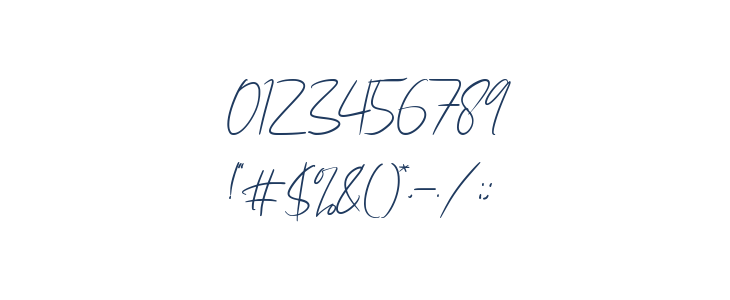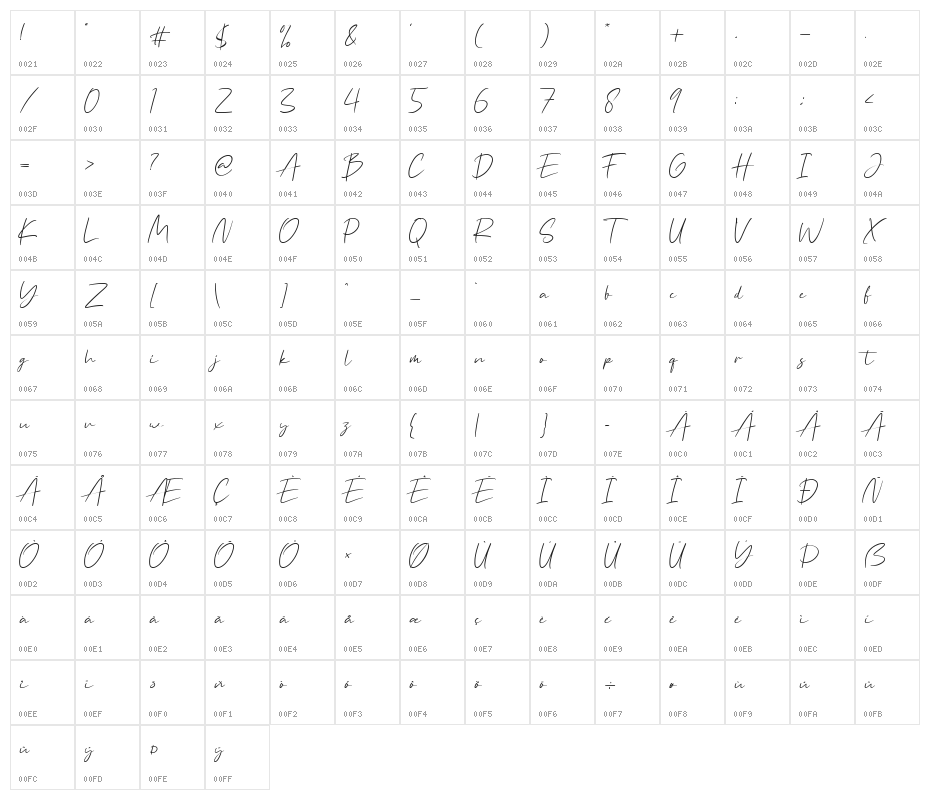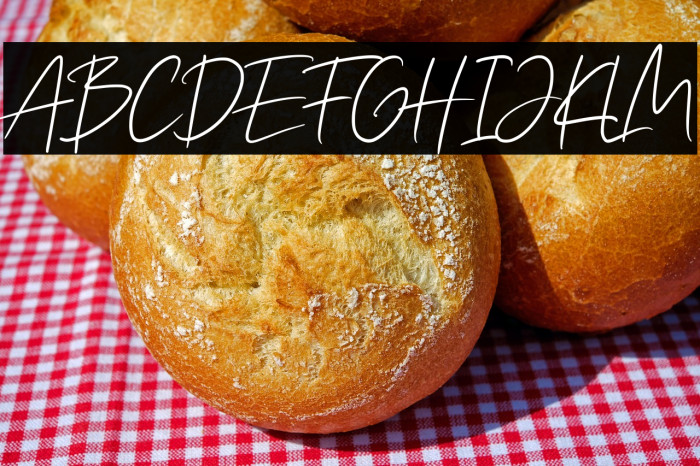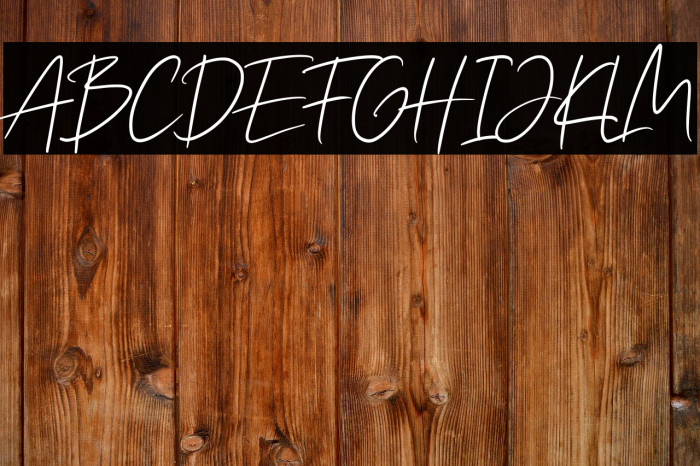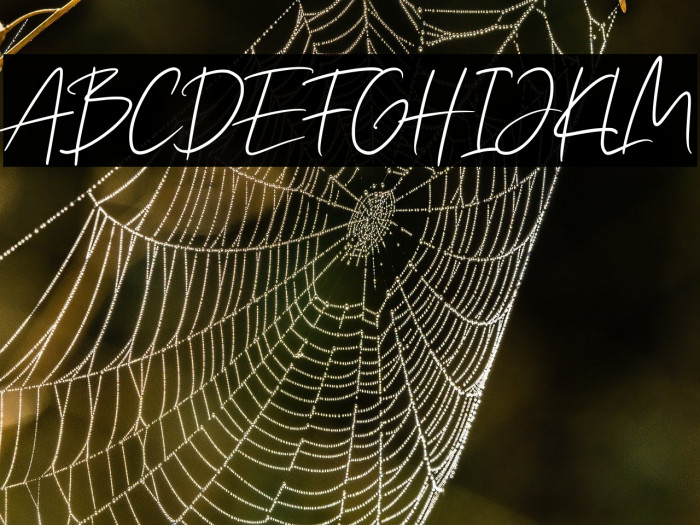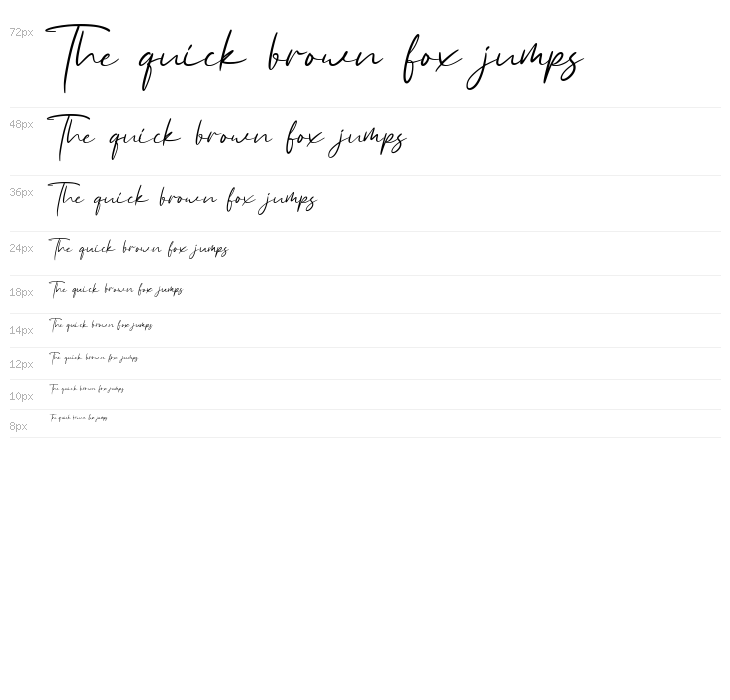
Angin Senja Font
Angin Senja Description
This font features a flowing, handwritten style with elegant, elongated strokes that give it a sophisticated and personal touch. The characters are slightly slanted, enhancing the script-like appearance, and the lines are smooth and continuous, mimicking natural handwriting. The uppercase letters are bold and prominent, while the lowercase letters maintain a delicate balance with their subtle curves and loops. The numerals and special characters are consistent with the overall style, maintaining the same fluidity and grace. This font is perfect for projects that require a personal, artistic touch.